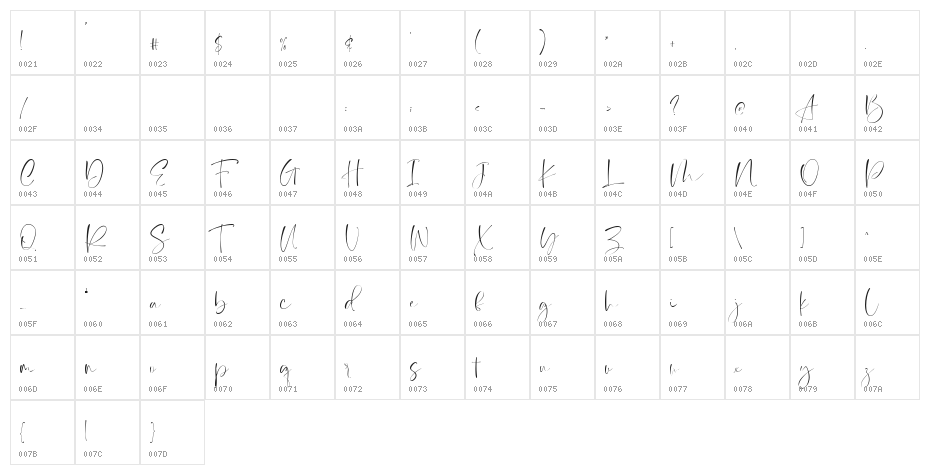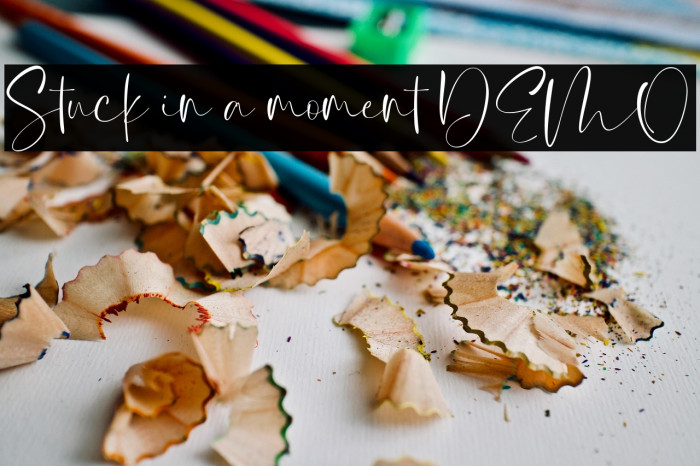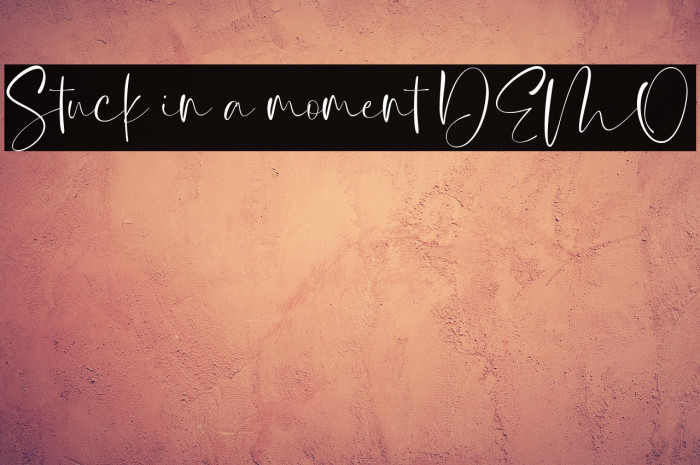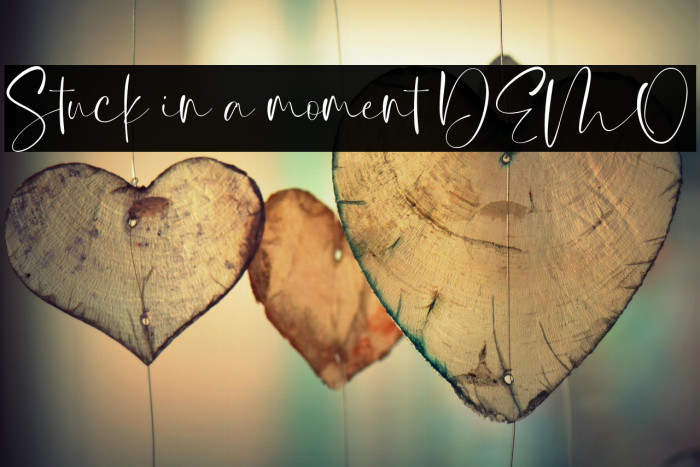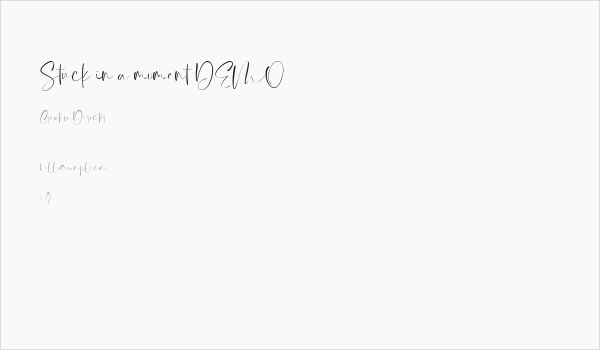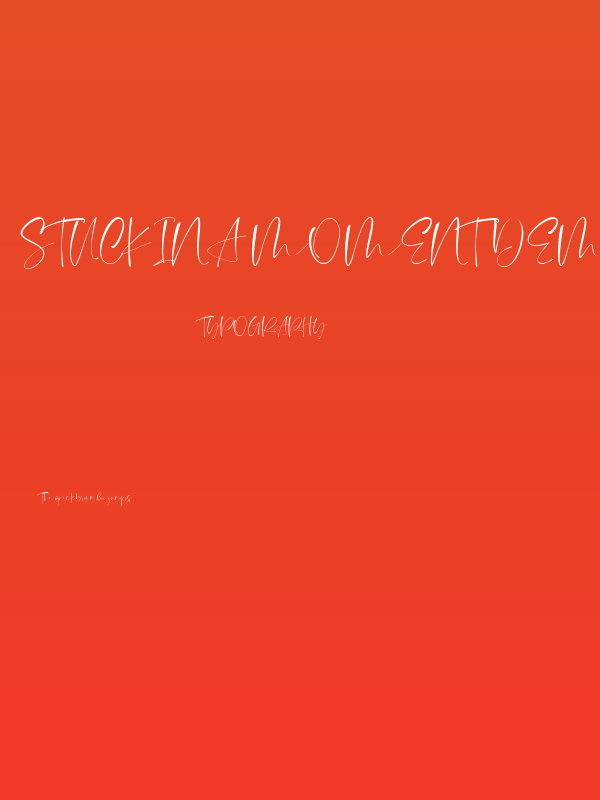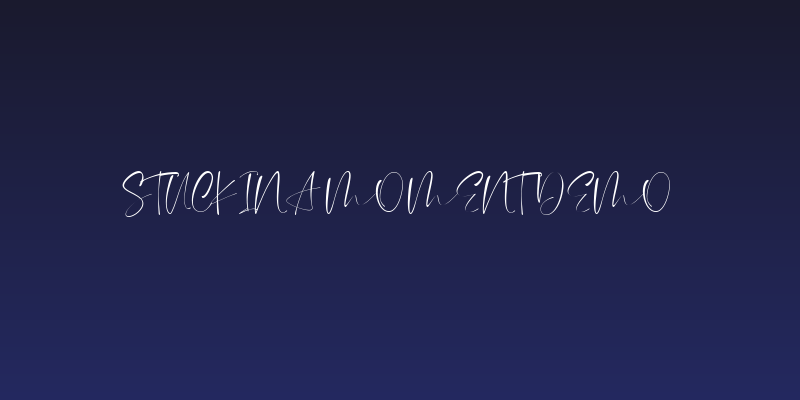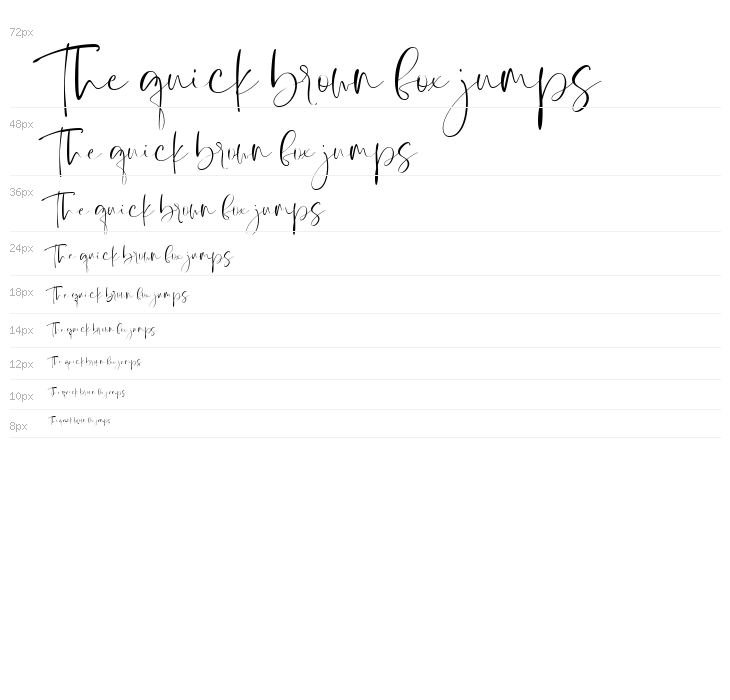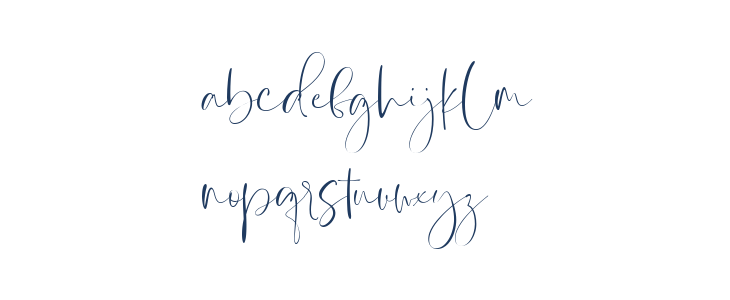
Stuck in a moment DEMO Font
Stuck in a moment DEMO Description
This font features a dynamic and expressive handwritten style, characterized by fluid, sweeping strokes and a playful, artistic flair. The uppercase letters are bold and dramatic, with a sense of movement and energy, while the lowercase letters maintain a consistent flow with elegant loops and curves. The numerals and special characters complement the overall aesthetic, adding to its whimsical and creative appeal. This font exudes a sense of spontaneity and creativity, making it ideal for projects that require a personal touch.